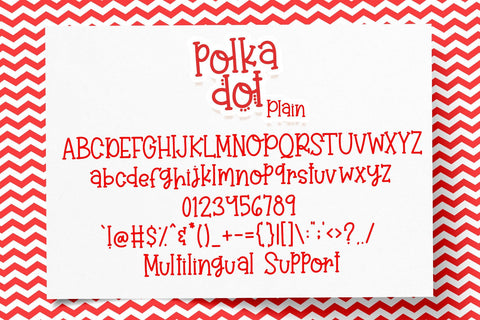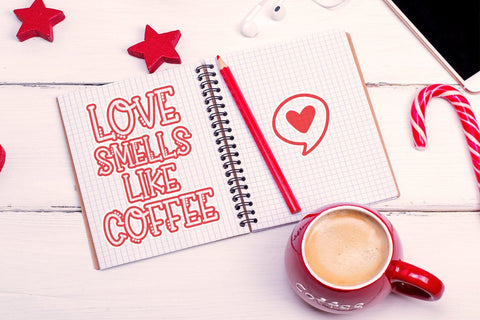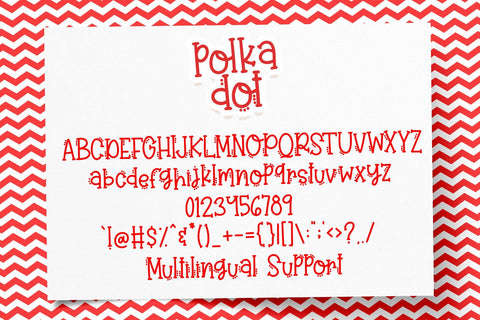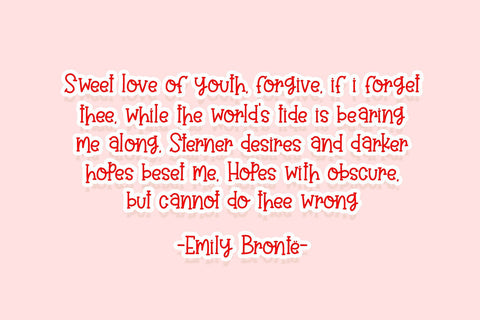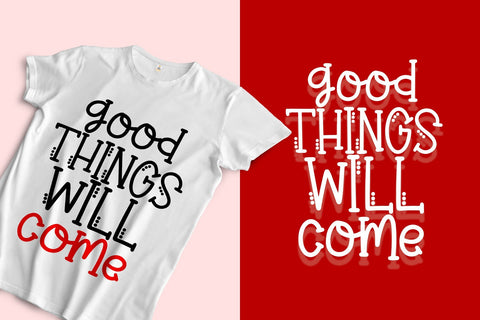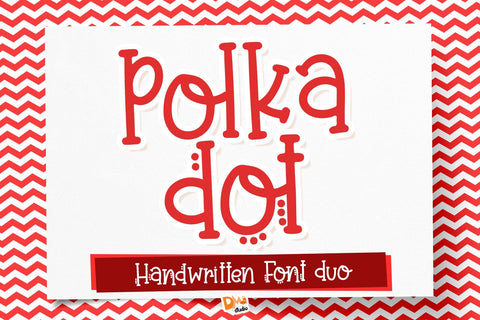
Polka Dot Font Duo
Polka dot a handwritten font duo
Introducing the quirky handwritten font duo, Polka dot.
Polka dot comes in two styles, with and without dots in each letter.
Great for your unique diy crafts, svg cut designs, promotional stuff, t-shirt design, mug, pillow, wall decor, and so much more.
- Numbers
- Symbols
- Comes in two styles